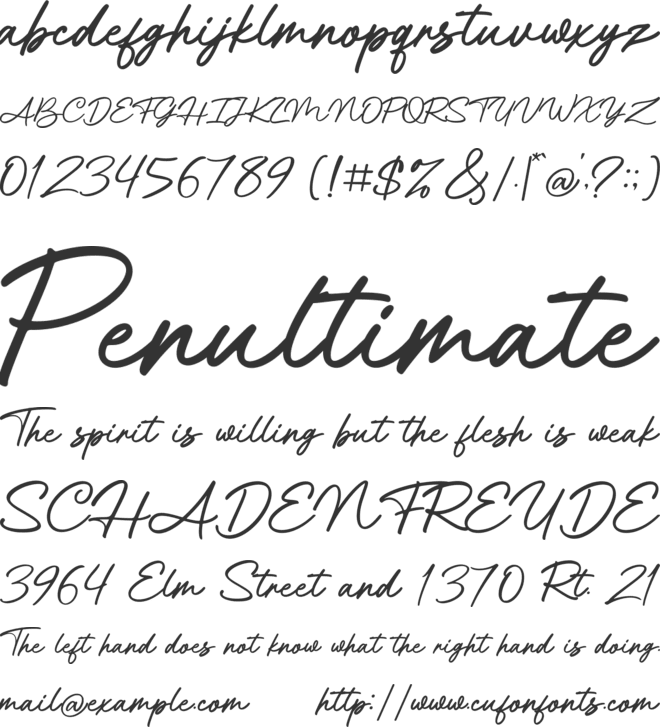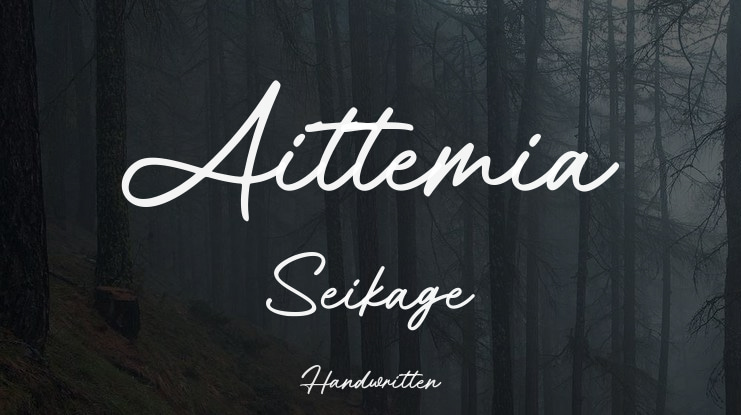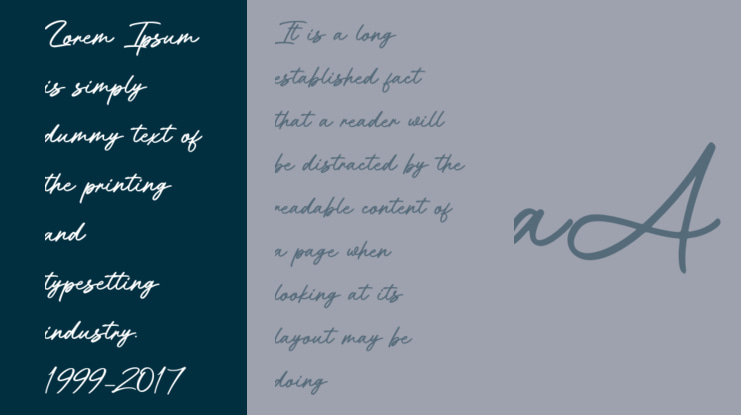
Aittemia Seikage Font
Aittemia Seikage a handwritten Font that adds a elegant, versatile touch to everything from branding and social media to invitations and packaging.